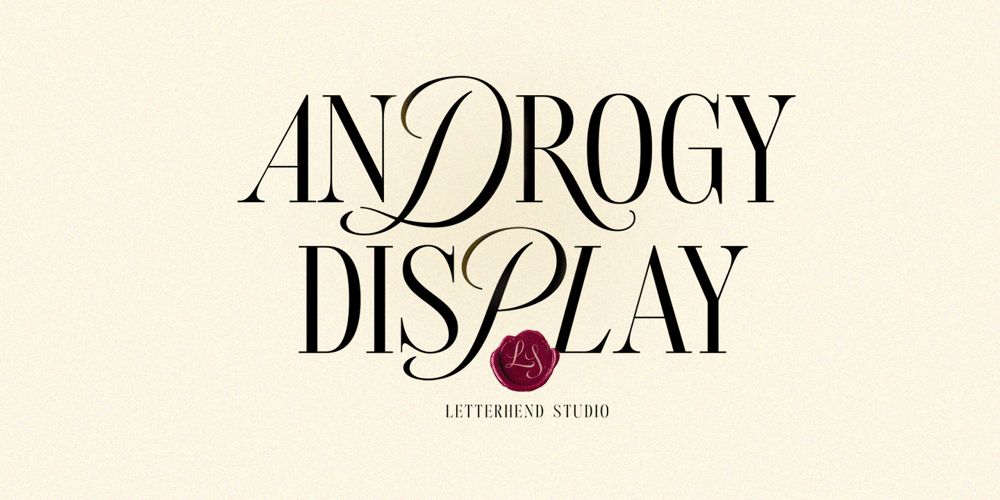
Androgy
Androgy font
Androgy Font Family was designed by Hendry Juanda and published by Letterhend. Androgy contains 1 styles and family package options. Androgy Display is a sophisticated serif with two style in one font. It has unique combination with script uppercase and serif as the lowercase. Perfectly to be applied to the other various formal forms such as invitations, labels, logos, magazines, books, greeting / wedding cards, packaging, fashion, make up, stationery, novels, labels or any type of advertising purpose.Features : Two style in one font numbers and punctuation multilingual alternates PUA encoded We highly recommend using a program that supports OpenType features and Glyphs panels like many of Adobe apps and Corel Draw, so you can see and access all Glyph variations.